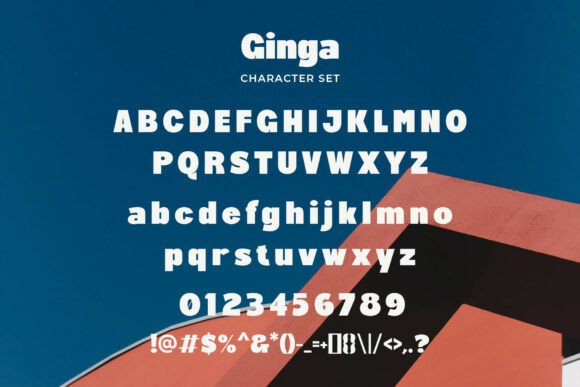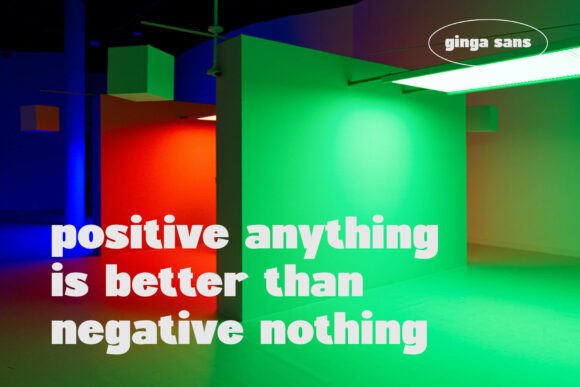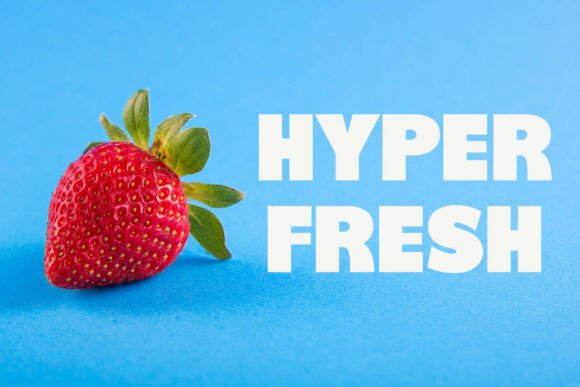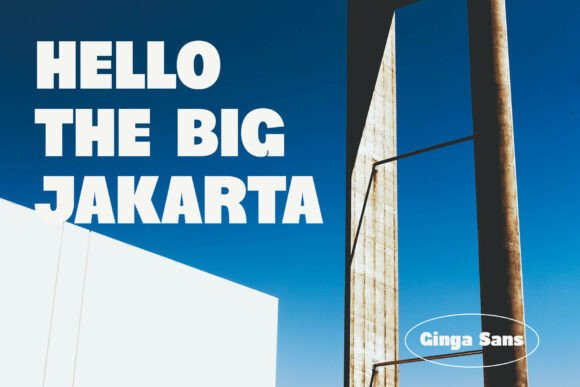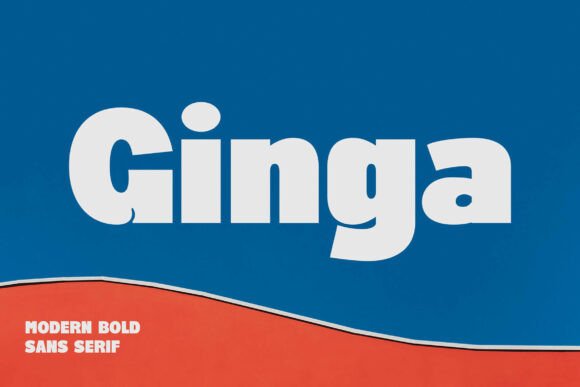
Ginga Font: Elevate Your Designs with a Bold and Assertive Sans Serif Font
In the world of typography, fonts play a crucial role in conveying messages, expressing emotions, and creating visual identities. For designers and crafters, having the right font can make all the difference in elevating a project from ordinary to extraordinary. This is where Ginga Font comes in – a bold and assertive sans serif font that can add a new level of sophistication and style to any creation.
The Power of Ginga Font
Ginga is a bold and assertive sans serif font that is designed to make a statement. Its clean and modern lines make it perfect for a wide range of applications, from branding and advertising to packaging and digital media. With its strong and confident presence, Ginga Font can help you create designs that demand attention and leave a lasting impression.
One of the key features of Ginga Font is its versatility. Whether you’re working on a serious and professional project or something more playful and creative, this font can adapt to any style or tone. Its bold and assertive personality makes it perfect for headlines, titles, and other display text, while its clean and simple lines ensure that it remains legible even at smaller sizes.
Why Choose Ginga Font?
So why choose Ginga Font over other fonts in your library? Here are just a few reasons why this font stands out:
- Bold and Assertive: Ginga Font is designed to make a statement. Its bold and assertive personality makes it perfect for creating designs that demand attention and leave a lasting impression.
- Versatile: Whether you’re working on a serious and professional project or something more playful and creative, Ginga Font can adapt to any style or tone.
- Clean and Modern: With its clean and modern lines, Ginga Font is perfect for creating designs that are fresh and contemporary.
- Easy to Read: Despite its bold personality, Ginga Font remains legible even at smaller sizes, making it perfect for body text and other applications where readability is key.
How to Use Ginga Font
So how can you use Ginga Font to elevate your designs? Here are a few ideas to get you started:
- Headlines and Titles: Use Ginga Font to create bold and attention-grabbing headlines and titles that demand attention.
- Branding and Identity: Use Ginga Font to create a strong and confident visual identity for your brand or business.
- Packaging: Use Ginga Font to create eye-catching packaging that stands out on store shelves.
- Digital Media: Use Ginga Font to create engaging and interactive digital media, such as social media graphics and website headers.
| Font Name | Ginga Font |
| Author | Ariya Works Studio |
In conclusion, Ginga Font is a bold and assertive sans serif font that can add a new level of sophistication and style to any creation. With its versatile personality, clean and modern lines, and easy readability, this font is perfect for a wide range of applications, from branding and advertising to packaging and digital media. Whether you’re a designer or crafter, Ginga Font is an incredible asset to your fonts library, and can help you create designs that demand attention and leave a lasting impression.